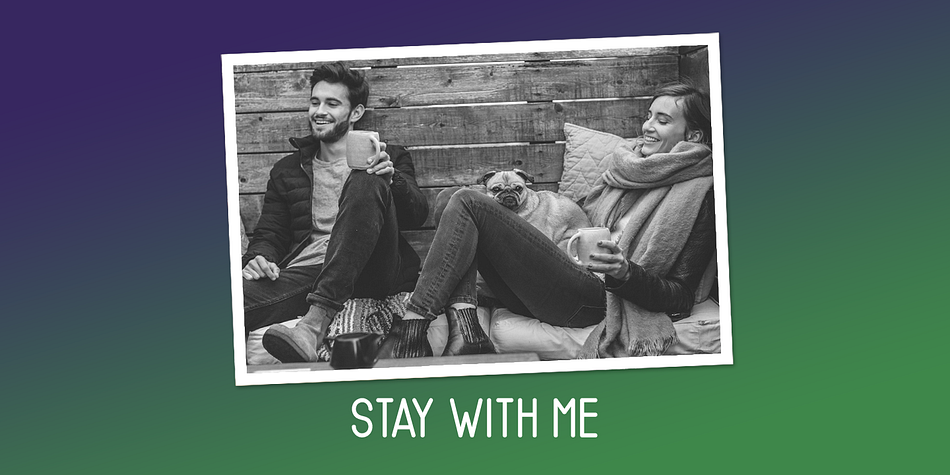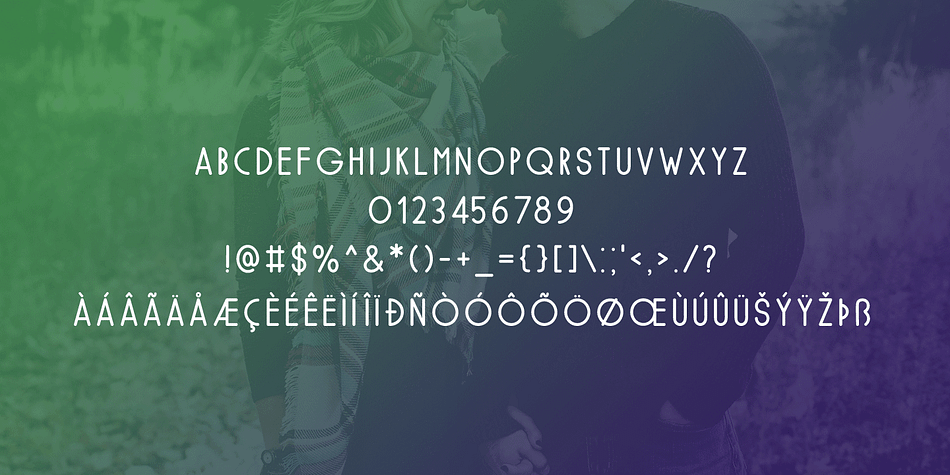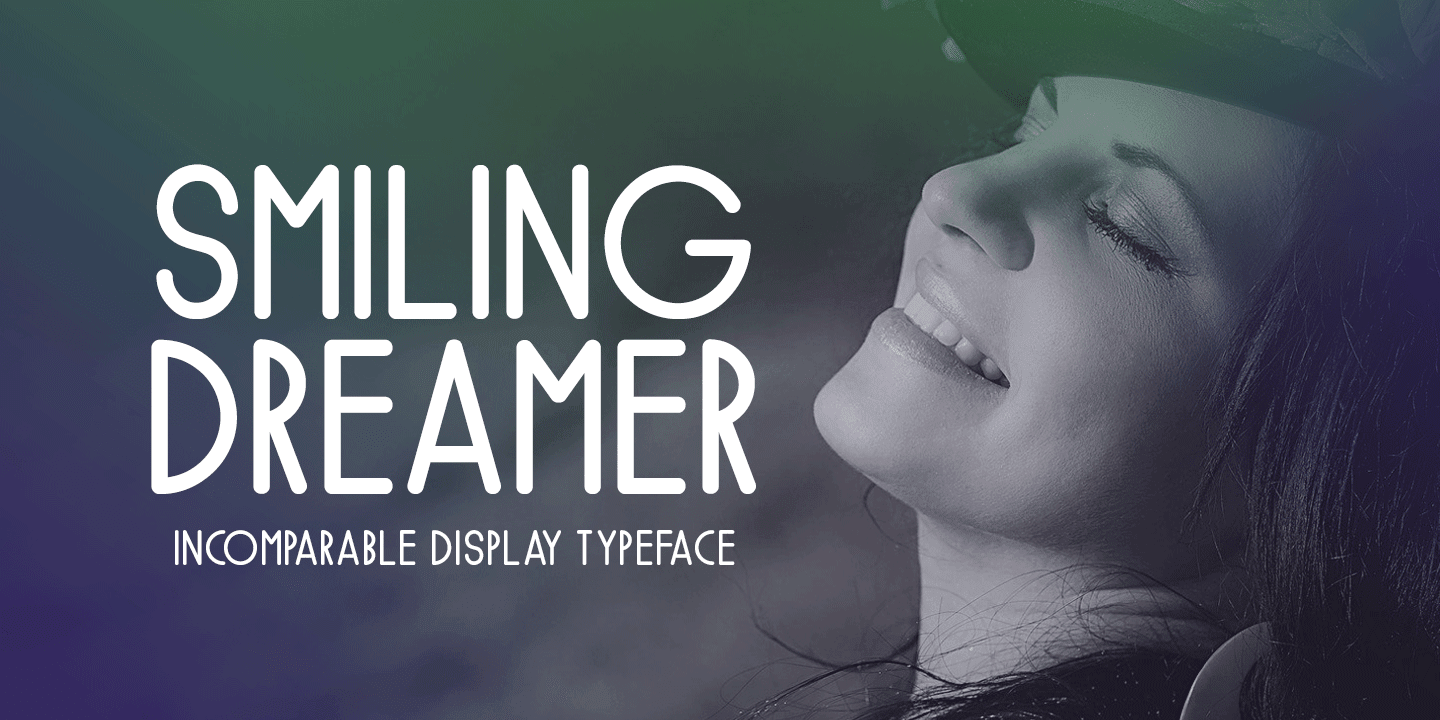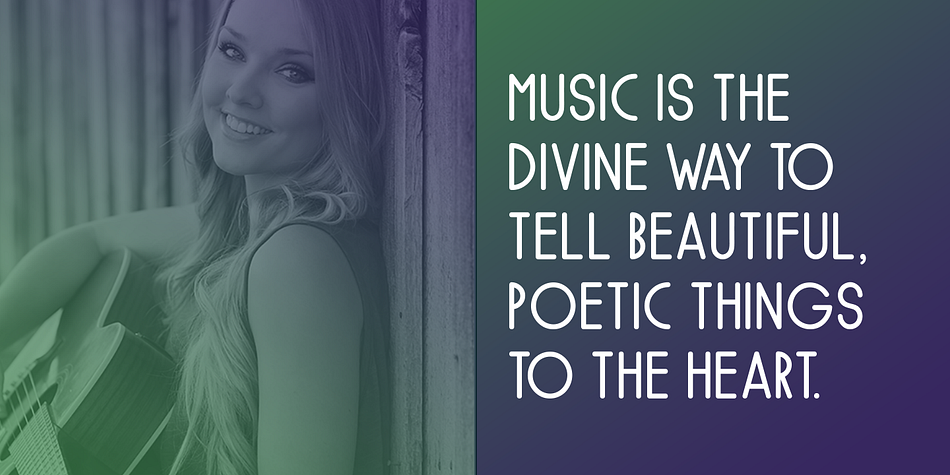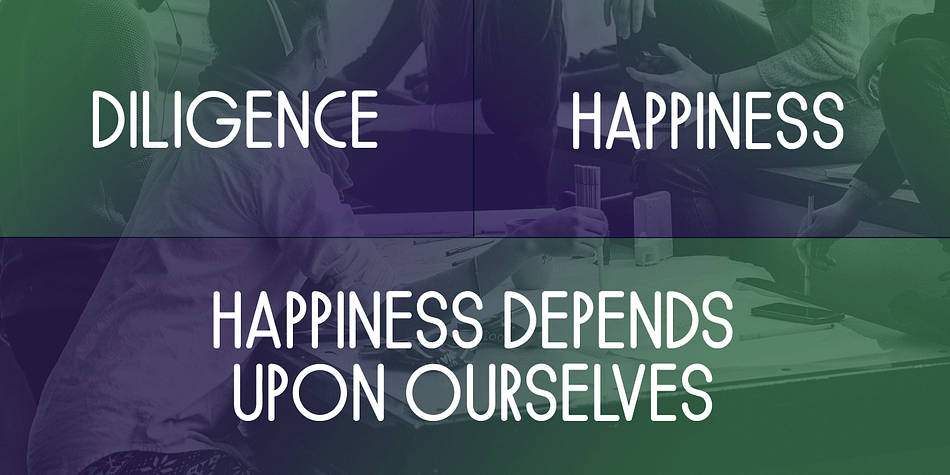
SMILING DREAMER
Designed by Md. Shohail Bhuiyan, Smiling Dreamer is a display sans and hand display font family published by Seemly Fonts.
Smiling Dreamer is a brand new display font. Smiling Dreamer is perfectly suited for stationery, logos, t-shirt, paper, print design, website header, photo frame, flyer, music cover, poster, image slider, and much more.
Foundry Seemly Fonts
Styles Display Sans, Hand Display
Designer Md. Shohail Bhuiyan